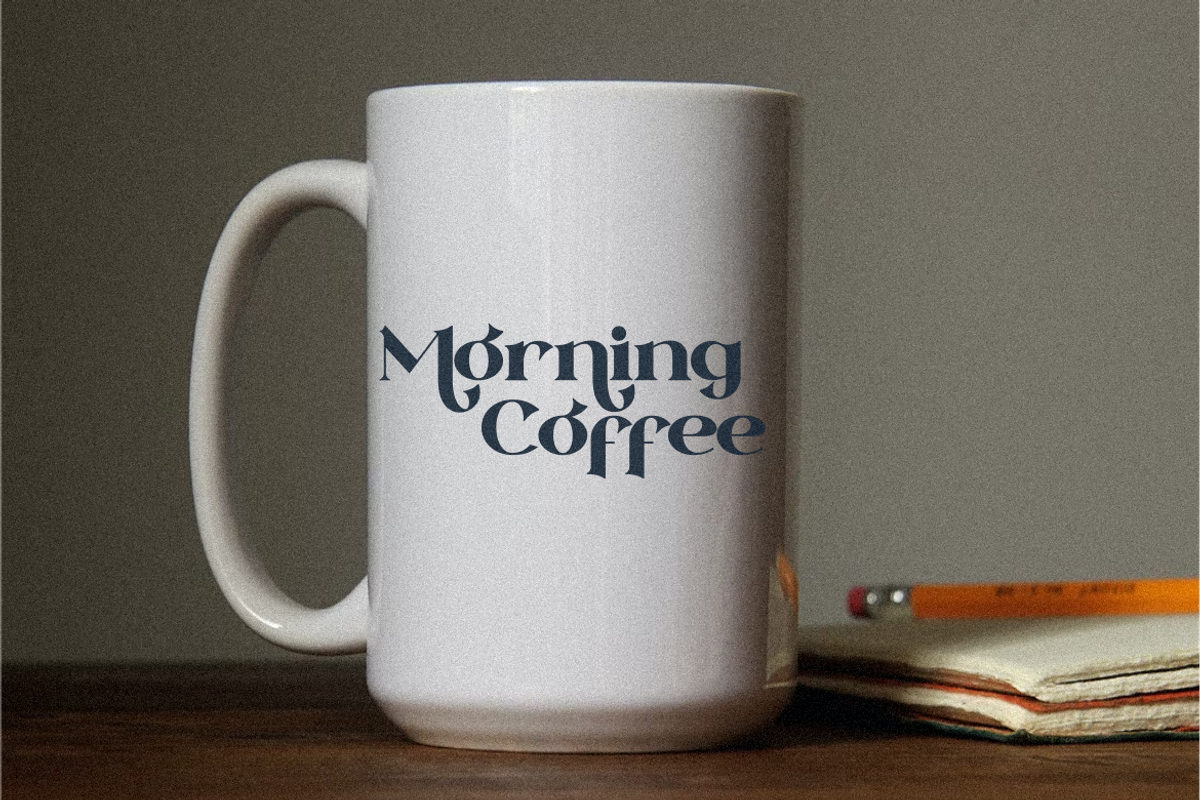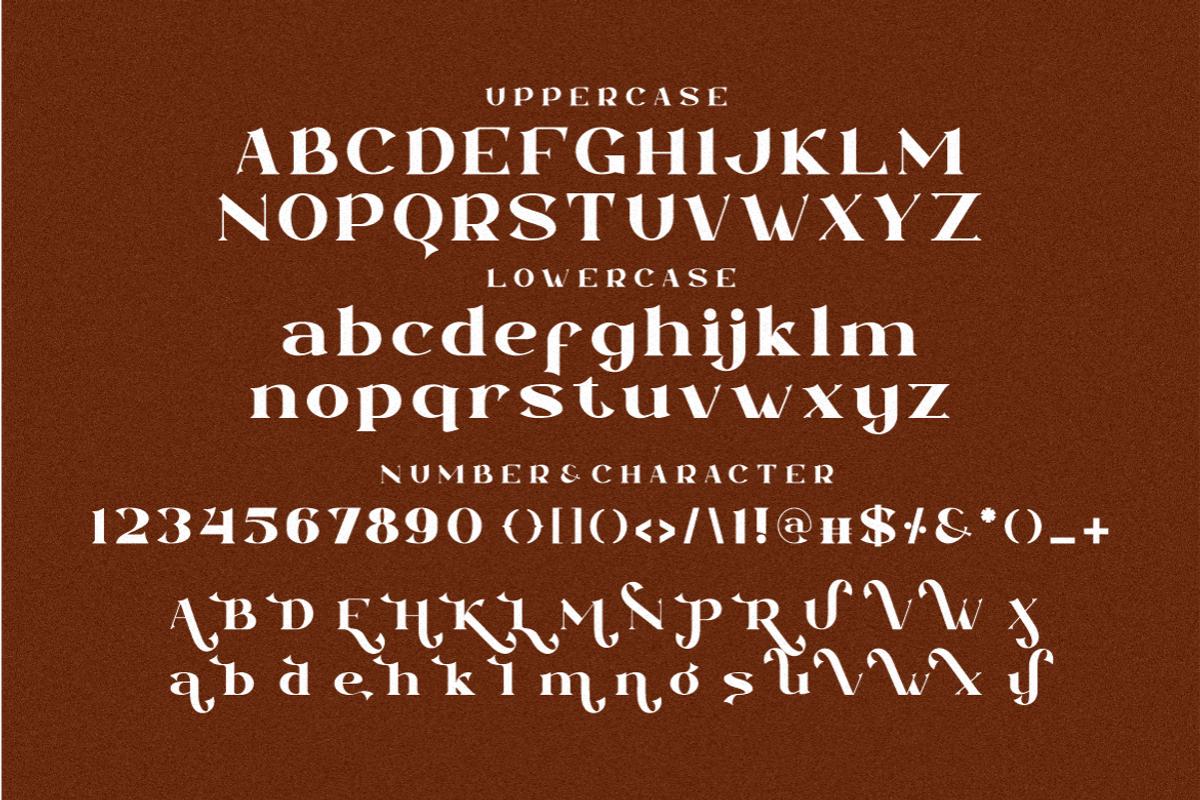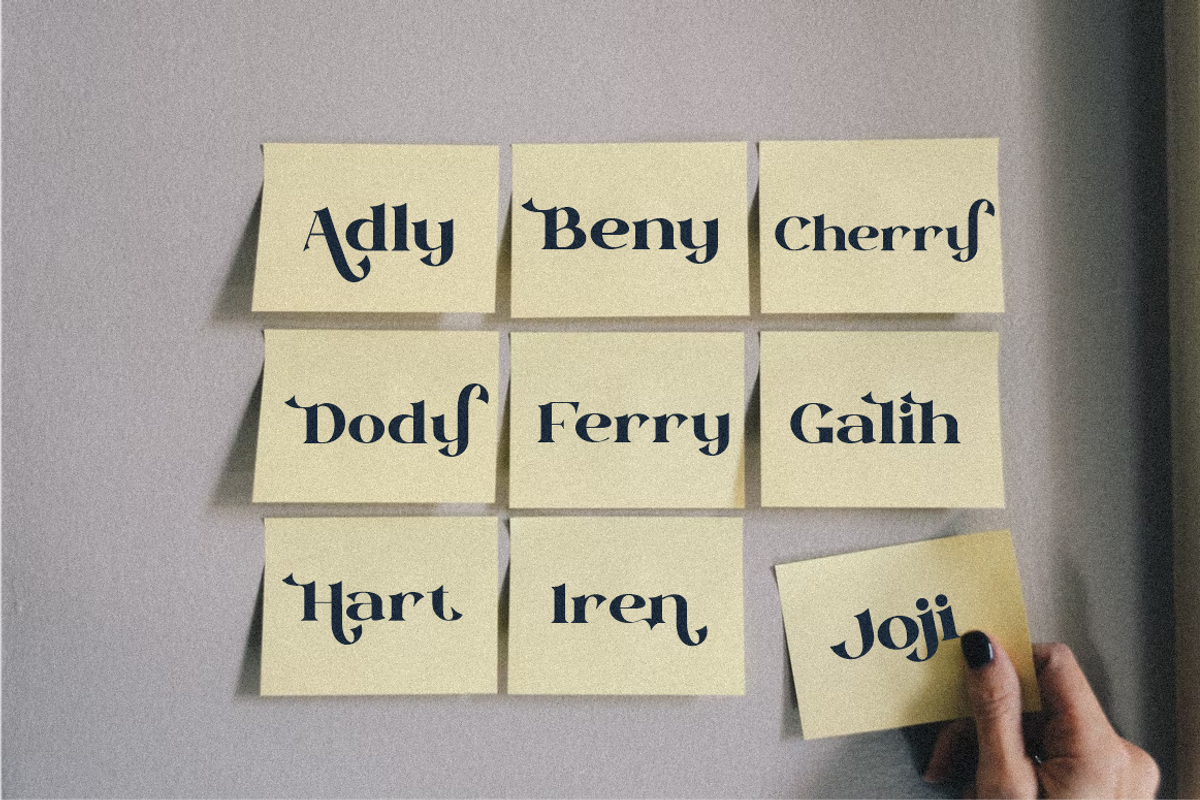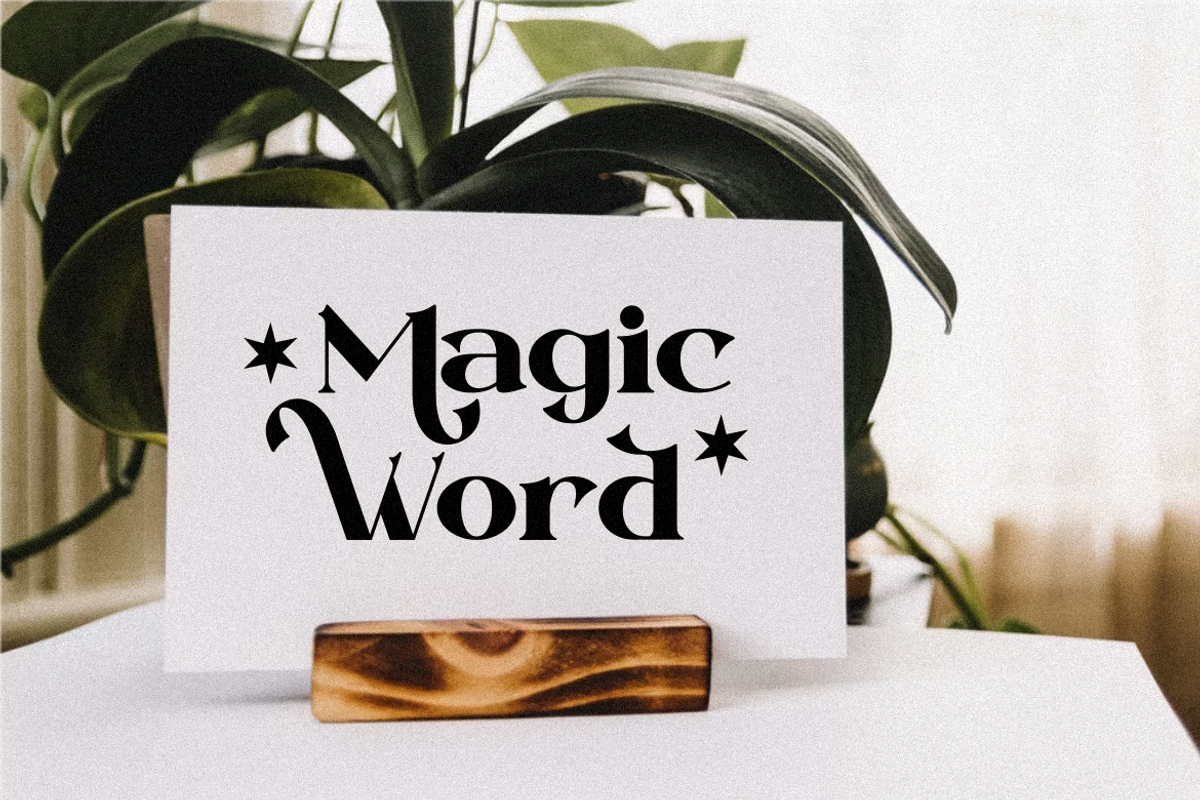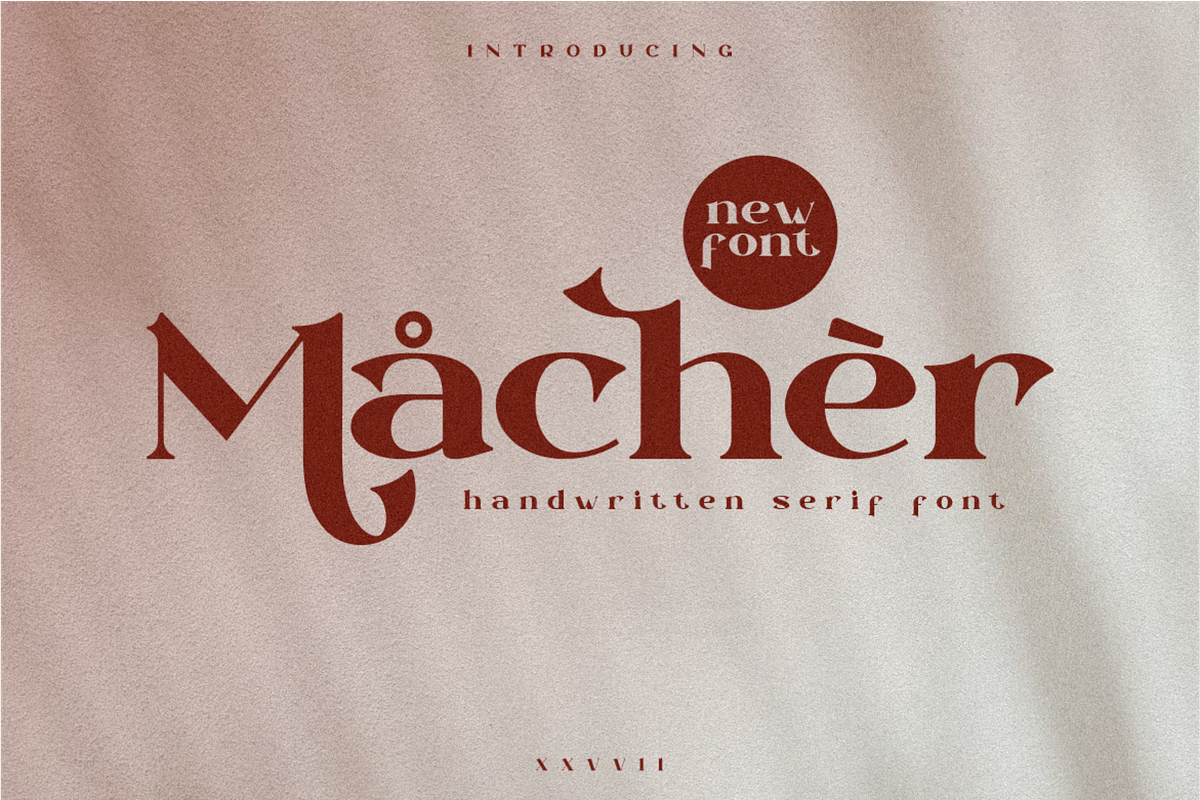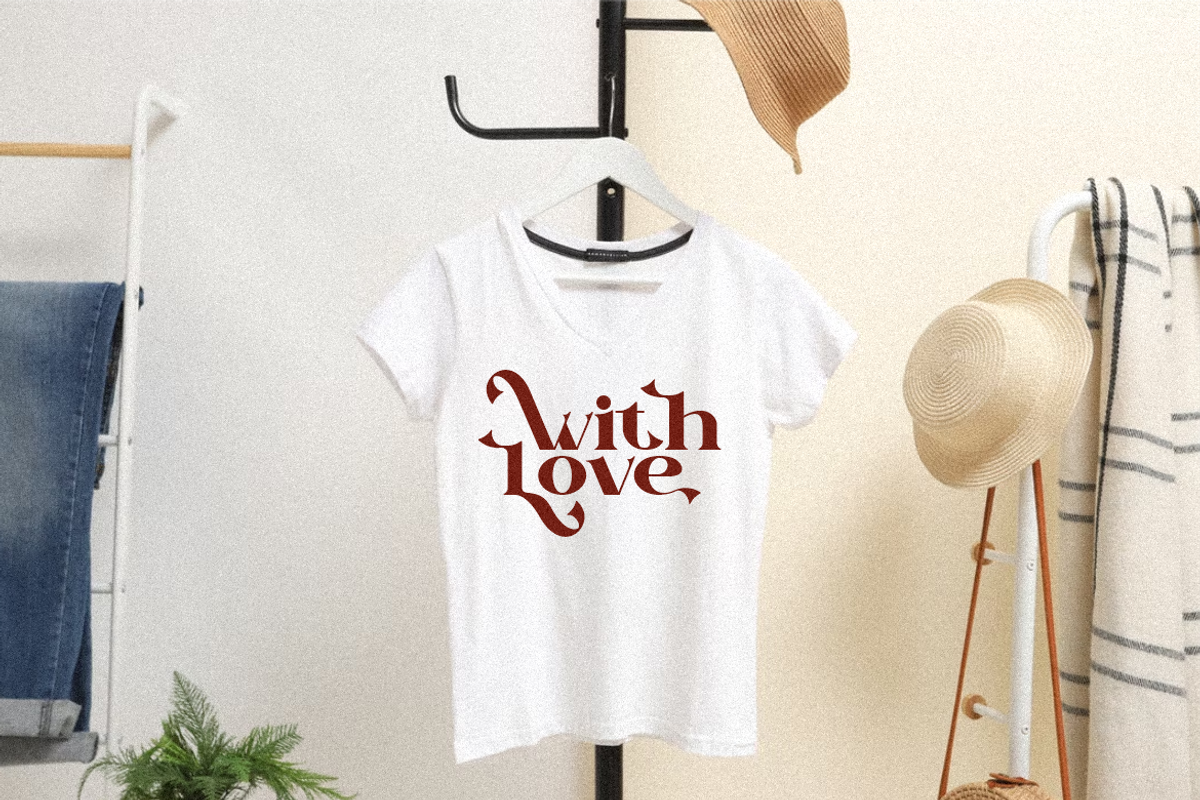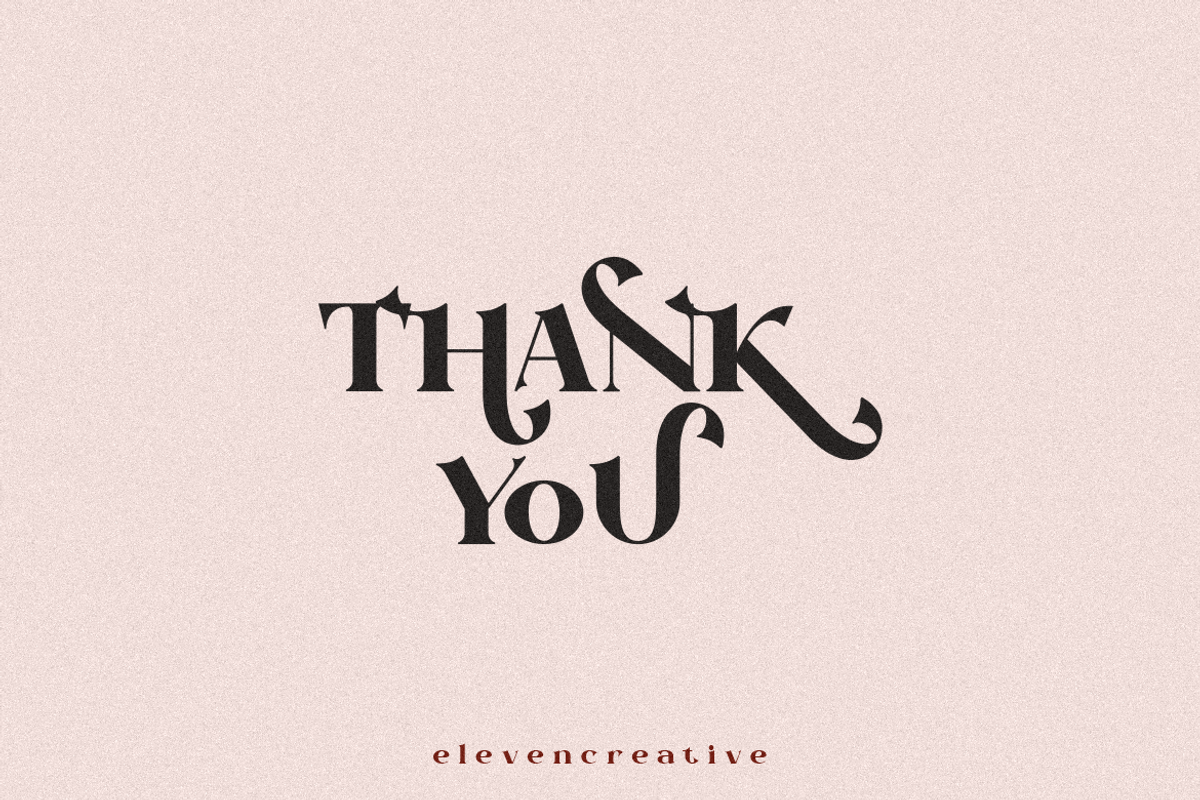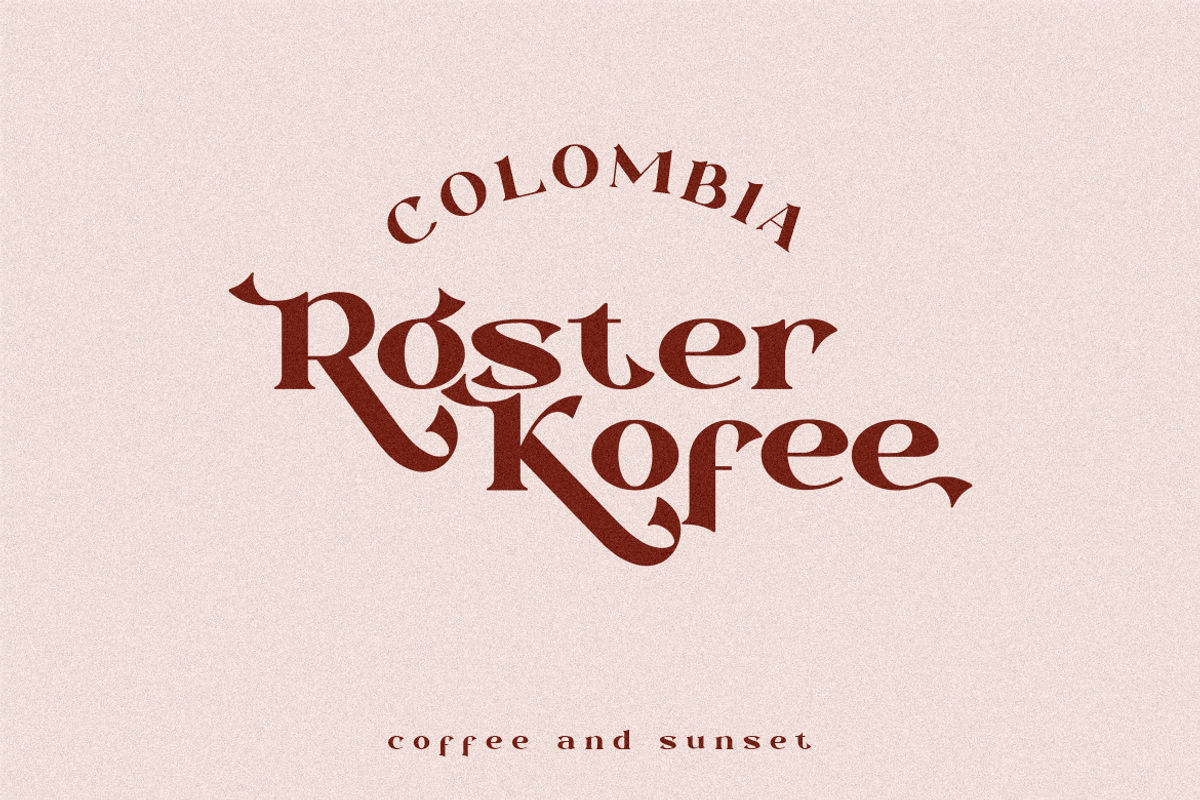
Macher Serif Font Classic
Introducing our new product Macher Serif Font Classic - Modern Font
Macher Serif Font Classic- Modern Font is a bold and authentic display font. The font is suitable for any branding project like logo, t-shirt printing, esport, and many more. outstanding in a wide range of contexts.